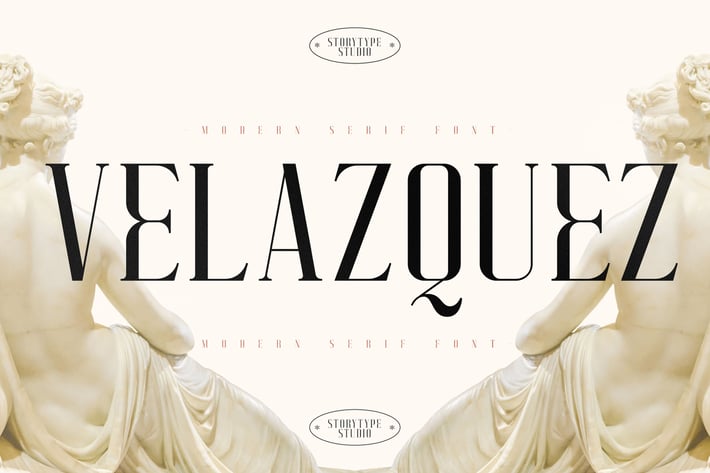
Velazquez Modern Serif Font
Velazquez is a refined modern serif font that exudes timeless sophistication and elegance. With sharp, elegant serifs and graceful letterforms, it adds a sense of luxury and artistry to any design. Perfectly balanced between classic and modern aesthetics, Velazquez brings a touch of high-end editorial style and sophistication to your creative projects.
Modern serif style with artistic contrast
Elegant and timeless design
Fully scalable and legible for both print and digital use
Perfect for:
Branding and identity design
Editorial and magazine layouts
Invitations and stationery
Luxury packaging
Social media graphics
Logo and title design
Bring timeless sophistication to your designs with Velazquez — a modern serif that combines classic beauty and contemporary refinement.